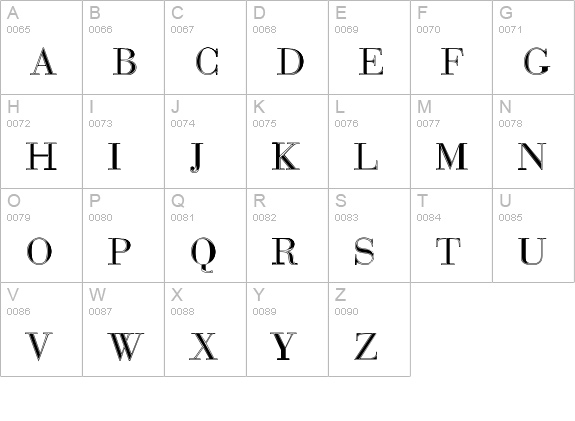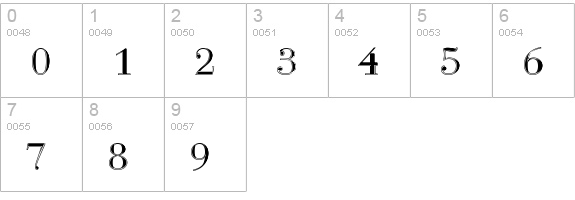
Bauer Bodoni D Regular In1 is the standard, neutral variant in the Bauer typeface family \xE2\x80\x94 well suited to general body text, paragraphs, and standard typographic work.
Bauer Bodoni D Regular In1 font is a timeless and elegant typeface that exudes sophistication and class. With its delicate serifs and graceful curves, this font is perfect for adding a touch of refinement to any design project. Whether you're creating a logo, invitation, or editorial layout, Bauer Bodoni D Regular In1 font will bring a sense of luxury and style to your work. The best part? This exquisite font is available for free download at FontsMarket.com. Now you can elevate your designs without having to worry about breaking the bank. Don't miss out on the opportunity to add Bauer Bodoni D Regular In1 font to your font collection today!